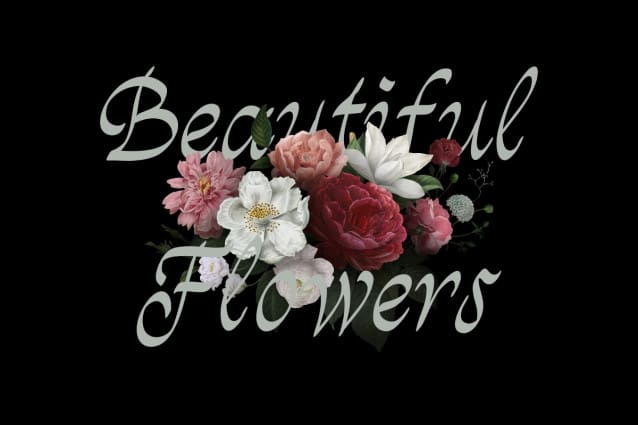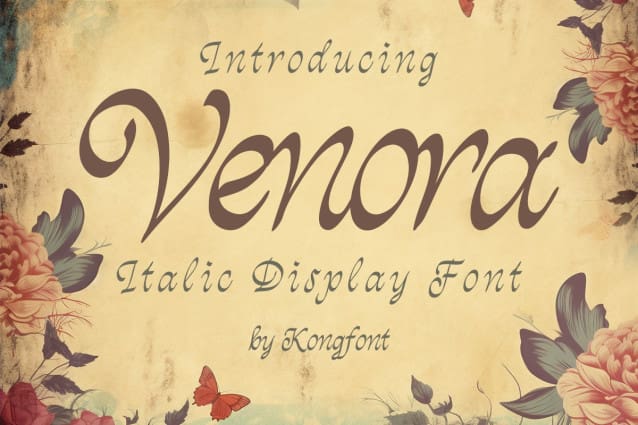
Venora Vintage Font
Venora Vintage Font – Modern Classy Handwritten Vintage Font is a combination of modern fonts and handwritten fonts with an elegant and likable appearance. For this typeface, a brush pen is used to create it, so the beauty shines through and is very real.
The brush used in this font is medium-tipped, so the resulting strokes are long and thin, curved and continuous. This type of font is the best font to use at formal events like weddings, graduation days, or gender parties and baby showers. You can also use it on invitations, letters, souvenirs, or thank you cards. Venora Vintage Font – Modern Classy Handwritten Vintage Font will give everyone who sees it a simple yet elegant appeal. From the explanation of these characteristics and uses, Venora Vintage Font – Modern Classy Handwritten Vintage Font is an aesthetic font.
For other formal events like art exhibitions, you can use our Venora Vintage Font – Modern Classy Handwritten Vintage Font on exhibition titles, team t-shirts, signage, and other items. This font can be applied as a digital font or print font. Combined with the right theme, supporting images, and atmosphere, the beauty Venora Vintage Font – Modern Classy Handwritten Vintage Font will radiate like sunlight that illuminates a room.